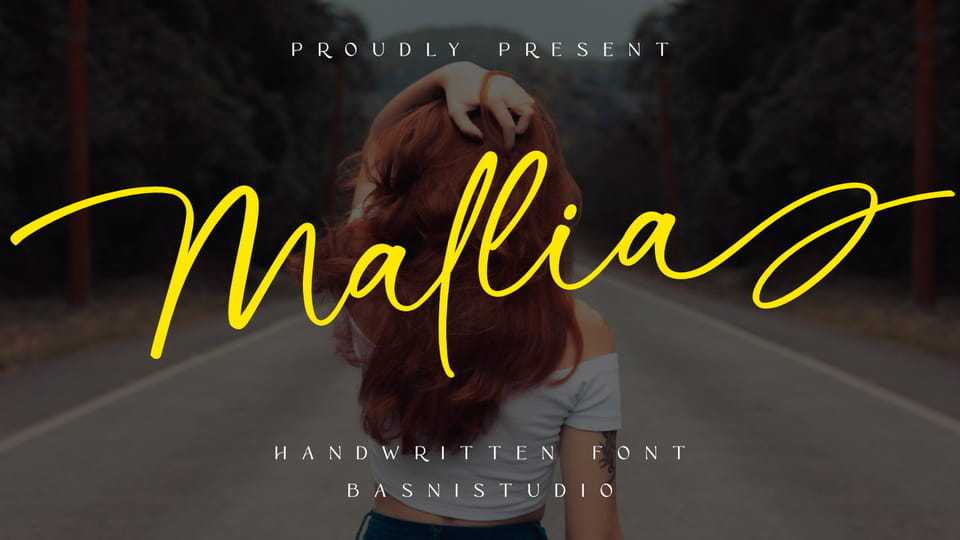
Download Mallia font, a flawless handwritten script crafted with authentic brush for natural and casual touch. Perfect for everything from branding and social media to invitations and packaging.